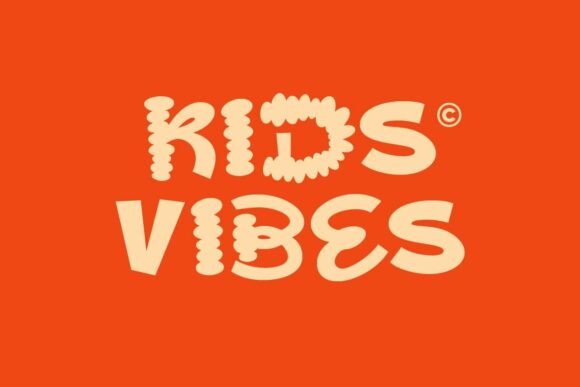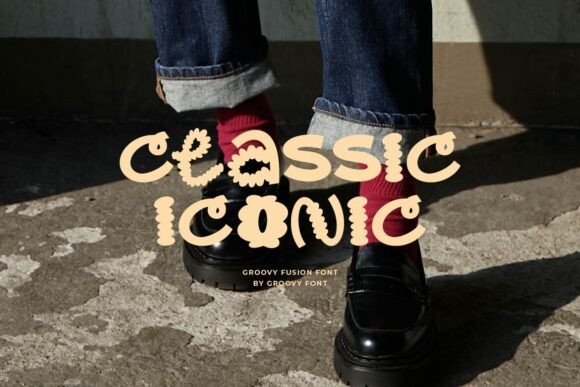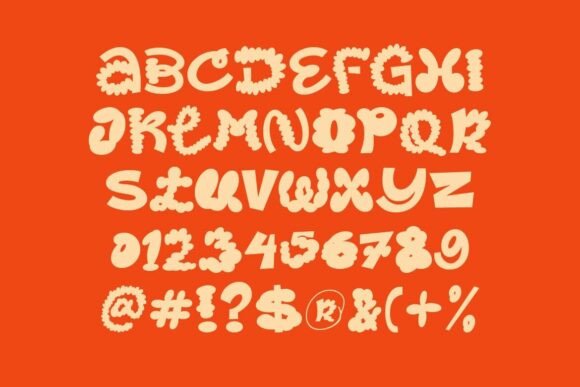
The Groovy Fusion Font: Bringing Creativity to Life
Who hasn’t had one of those magical moments where the perfect font suddenly appears in your mind, perfectly capturing the essence of your creative vision? For designers, these moments are what make the job so rewarding – and with the right tools, they can be achieved every time. One such tool is the Groovy Fusion Font, a playful display font that effortlessly blends different letter styles to create a fun and unique aesthetic.
Designed specifically to convey a sense of creativity and imagination, the Groovy Fusion Font is perfect for children’s designs, from cheerful posters to colorful packaging and vibrant illustrations. Its mix of bold and curvy lettering brings a playful and cheerful feel to any project, making it a valuable addition to any designer’s toolkit.
Groovy Fusion Font Key Features
- Unique Character Set: The Groovy Fusion Font features a unique character set, including over 500 glyphs, offering a wide range of creative possibilities and allowing designers to express themselves in a more nuanced way.
- Script and Language Support: The font supports a range of languages, including Latin, Cyrillic, and Greek scripts, making it a versatile choice for international projects.
- Vector-Based Design: As a vector-based font, the Groovy Fusion Font can be scaled to any size without losing quality, ensuring that it remains crisp and clear even in large or small applications.
Groovy Fusion Font Review
Overall, I think Groovy Fusion Font is a unique and interesting addition to any digital project. Here are a few things that really stand out to me: ✨
- ✨ The font’s psychedelic vibes are really infectious – it’s the perfect choice for any project that wants to make a bold statement.
- ✨ The font’s varied weights and styles make it super versatile, and it’s easy to see how it could be used in a wide range of contexts, from logos to UI elements.
- ✨ I love the way the font’s rounded edges and flowing curves give it a sense of movement and energy.
Of course, like any font, Groovy Fusion Font has its limitations: ⚠️
- ⚠️ At times, the font can feel a bit overwhelming or even kitschy – it’s not the best choice for projects that need a more serious or professional tone.
- ⚠️ Some of the font’s styles can feel a bit inconsistent, which can make it harder to use in certain contexts.
- ⚠️ I also wish the font had a bit more support for non-latin scripts – it’s a shame that it’s not as versatile as it could be.
Overall, I think Groovy Fusion Font is a fun and creative choice for digital projects that need a bold, eye-catching font. While it may not be the best choice for every project, it’s definitely worth considering for anything that needs a bit of extra flair.
For best results, use the Groovy Fusion Font in combination with bold and italic text styles to create a visually striking effect.
Use the Groovy Fusion Font to create eye-catching headlines and titles that grab attention.
Use the Groovy Fusion Font to create engaging presentations and documents that stand out from the crowd.
The Groovy Fusion Font is perfect for:
- Creating eye-catching headlines and titles
- Adding a touch of fun and personality to your designs
- Standing out from the crowd in a crowded market